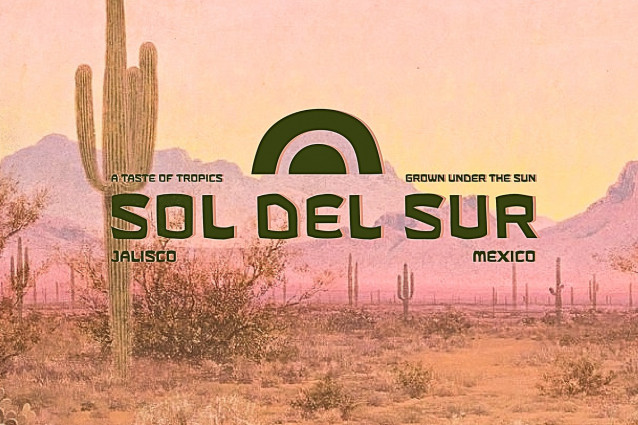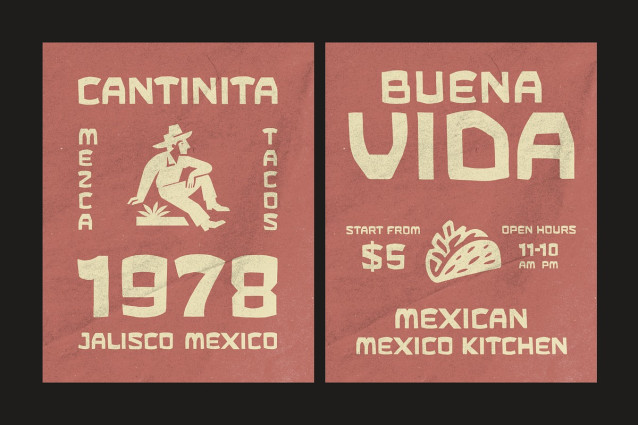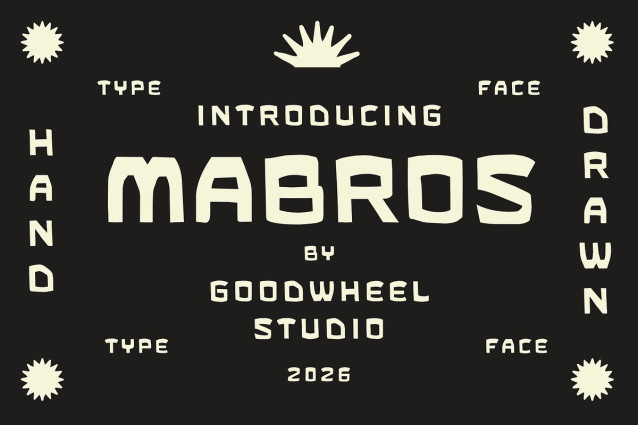
Mabros Font
Mabros Font is a bold handcrafted display font inspired by folk art, vintage signage, and adventurous outdoor culture. Designed with strong geometric shapes, playful curves, and slightly irregular details, it delivers a unique handmade character that feels both nostalgic and contemporary. Its distinctive letterforms create a powerful visual presence, making it perfect for logos, packaging, restaurant branding, coffee labels, posters, apparel, merchandise, and creative editorial projects. MABROS combines rugged charm with approachable warmth, allowing designers to create memorable identities with ease. Whether used for large headlines or standout branding, this font brings personality, authenticity, and timeless handcrafted appeal to every design.